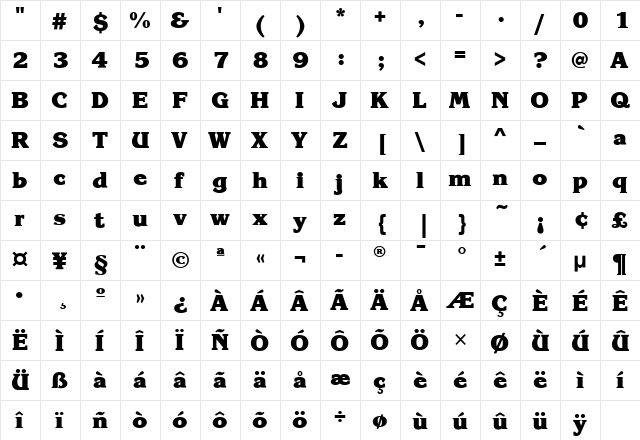
KorinnaBldITC Heavy
Design Context for KorinnaBldITC Typeface
KorinnaBldITC is a composed and adaptable typeface that performs quietly and consistently across a wide range of design contexts.
Pro Tip: Use KorinnaBldITC in both headline and body roles to test its range before committing to a single application.